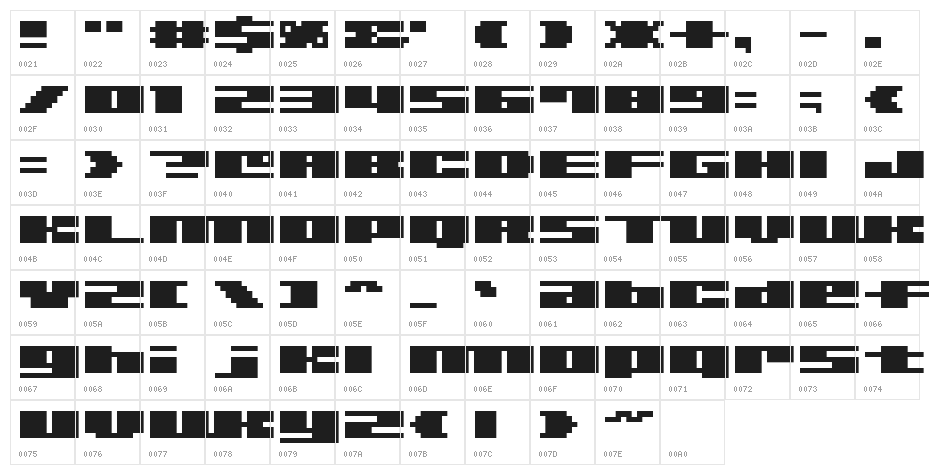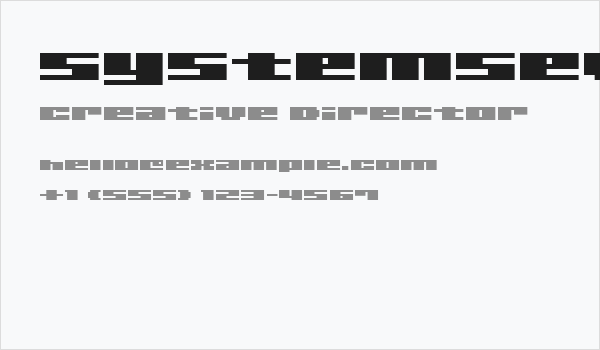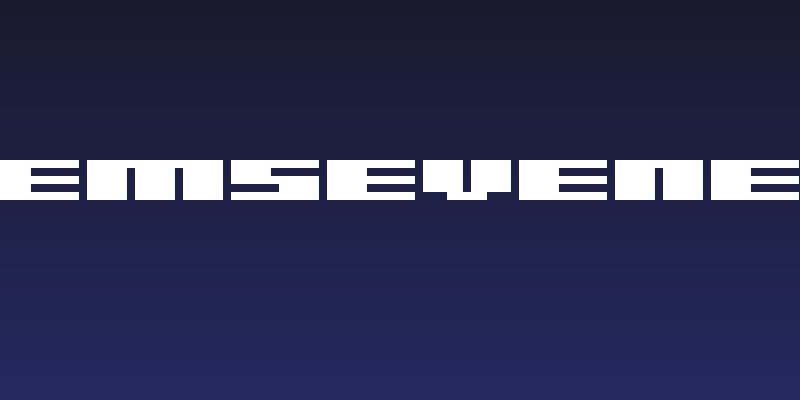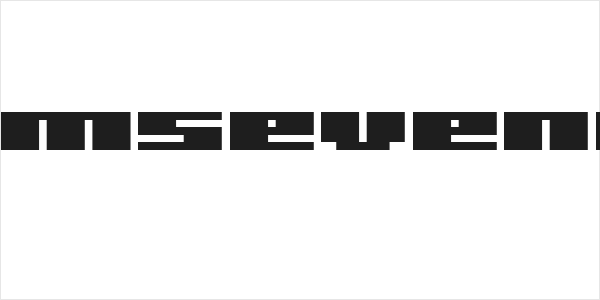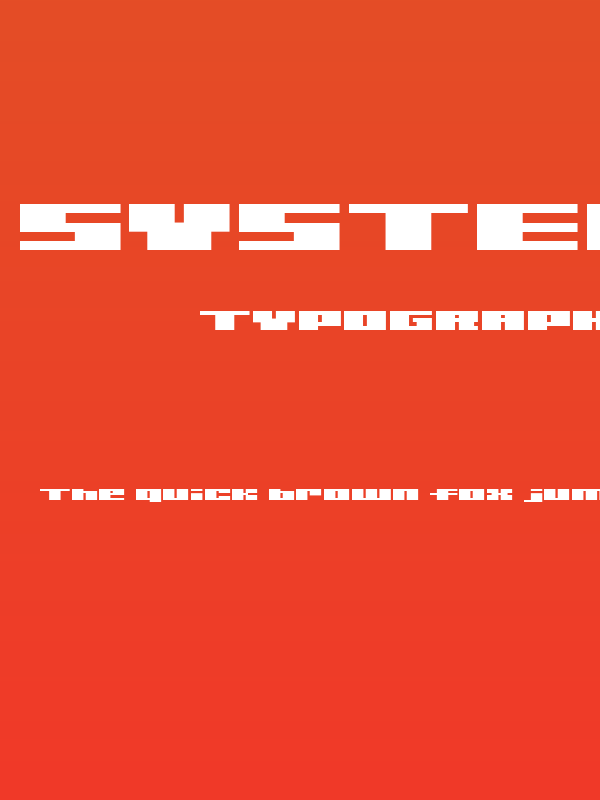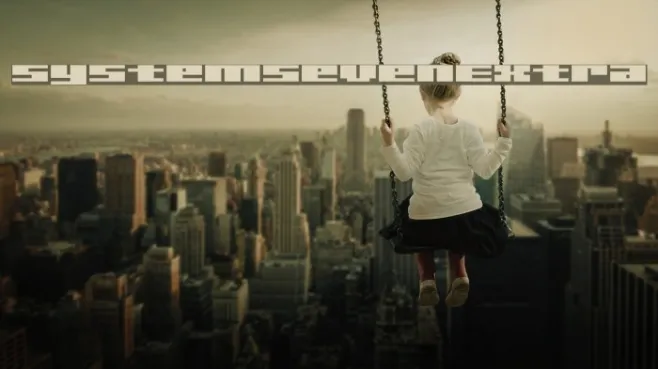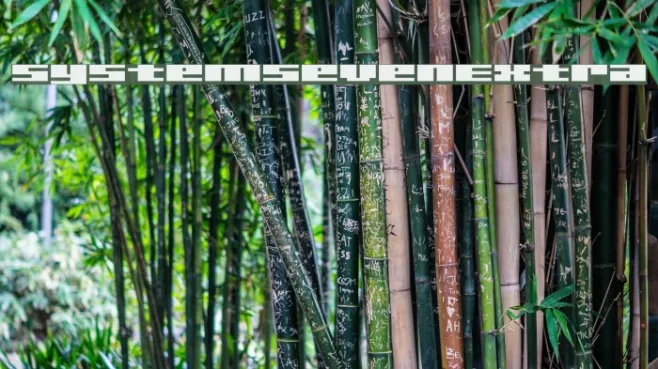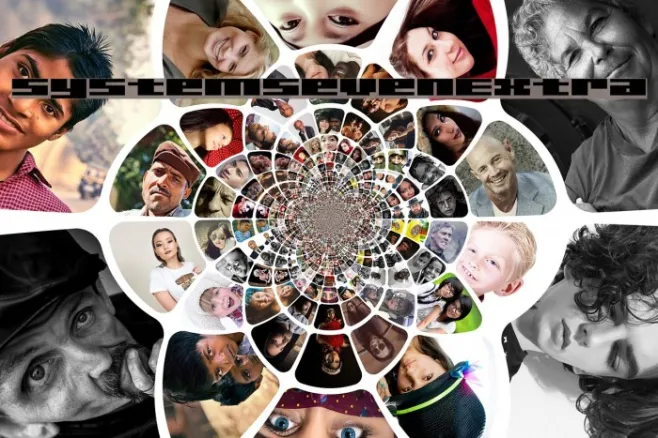
SystemSevenExtra Font
SystemSevenExtra Description
This font features a bold, geometric design with a strong emphasis on rectangular shapes and sharp edges. Each character is constructed with a consistent blocky style, giving it a digital or futuristic appearance. The uppercase and lowercase letters maintain a uniform height, contributing to a cohesive look. The numbers and special characters follow the same design principles, ensuring visual harmony across all glyphs. The font's distinct style makes it ideal for projects that require a modern, tech-inspired aesthetic.
| Proposed Projects | Ideal for tech branding, video game titles, digital interfaces, and futuristic posters. |